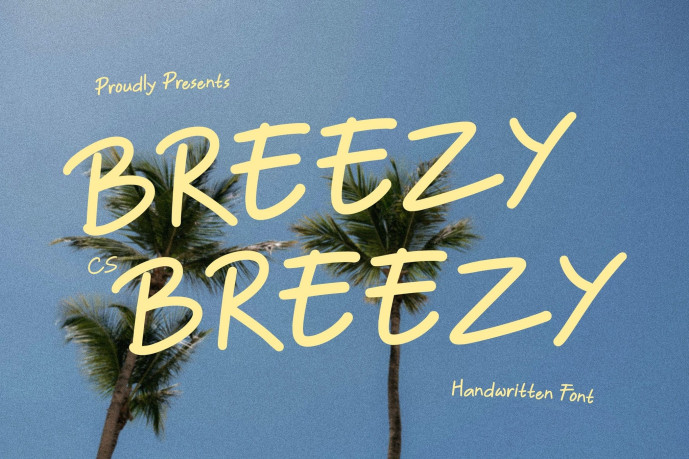
Breezy – Handwritten Font
Designer: craftsupplyco
CS Breezy Handwritten Sans Serif Font with a Springtime Vibe This is a bright and lively handwritten sans serif font that captures the essence of freshness and renewal. With its clean yet playful strokes, it radiates a natural, uplifting energy reminiscent of spring blossoms. Designed to bring positivity and charm, adds a breezy, joyful feel to any creative project.
Playful Simplicity for Fresh Designs The sans serif form gives this font a modern, uncluttered appearance, while its handwritten flow introduces warmth and character. This balance of clarity and spontaneity makes it a delightful choice for designs that want to feel light, airy, and full of life. Its fresh visual rhythm enhances every message with a sense of optimism and creativity.